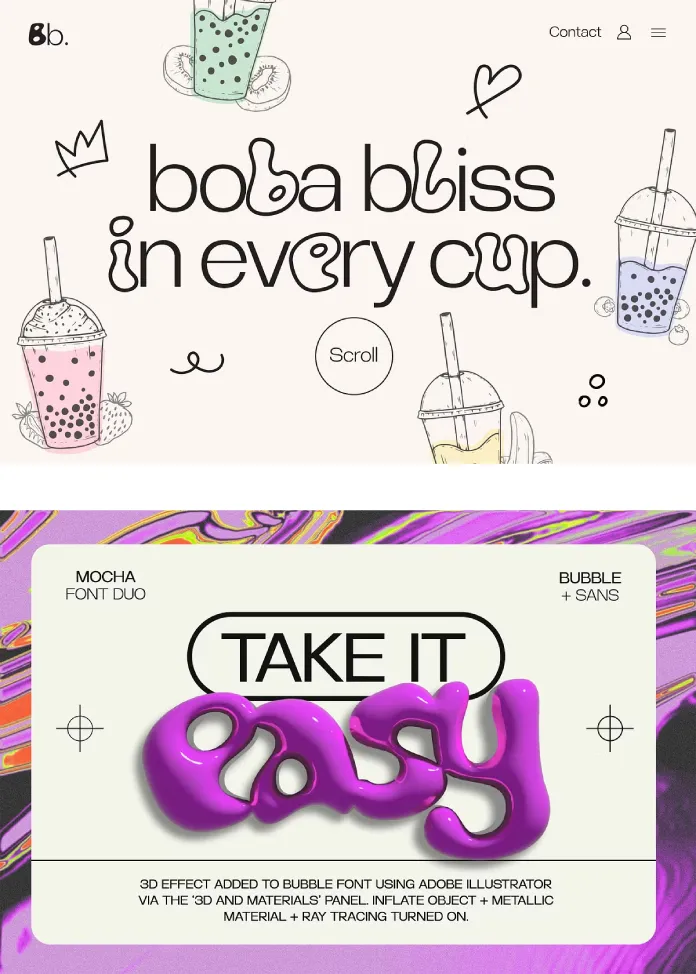
The Mocha Bubble + Sans Font Duo Offers Playful Typography for your Design
The quest for a typeface that is both contemporary and possesses a timeless, playful charm can be elusive. The Mocha Bubble + Sans font duo, a thoughtfully designed pairing by Sam Parrett of Set Sail Studios, rises to this challenge with remarkable finesse. This font duo is not merely a fleeting trend; it represents a significant shift towards more organic, friendly, and approachable aesthetics in typography. Its relevance is underscored by the current design ethos that prioritizes authenticity and a human touch. The Mocha Bubble + Sans font duo delivers exactly that, making it a pivotal tool for designers and brands aiming to connect with their audience on a more personal level.
This article will explore the intricacies of this unique font pairing. We will delve into what makes the Mocha Bubble and Sans fonts a cohesive and versatile system. We will also examine why this duo is gaining traction and how you can effectively leverage its distinct personality in your own creative projects. Prepare to be inspired by the playful possibilities that await.
Deconstructing the Duo: What is the Mocha Bubble + Sans Font?
At its core, the Mocha Bubble + Sans font duo is a carefully curated set of four distinct yet complementary typefaces. Sam Parrett has created more than just two fonts; he has engineered a typographic system designed for interaction and creative exploration.
Mocha Sans & Mocha Sans Bold
The foundation of this pairing is Mocha Sans, a modern and contemporary contrasted sans-serif font. Its clean lines and balanced proportions provide clarity and a touch of elegance. This font is a workhorse, suitable for body text, headlines, and everything in between. It comes complete with a full set of uppercase and lowercase letters, as well as punctuation.
Recognizing the need for emphasis and hierarchy, Parrett included Mocha Sans Bold. This bolded version maintains the core characteristics of the original but with added weight, making it ideal for creating visual impact or ensuring legibility at smaller sizes. Have you considered how a subtle change in font weight can dramatically alter the tone of your message?
Mocha Bubble & Mocha Outline
The true star of this pairing is arguably Mocha Bubble. This playful, organic, hand-drawn bubble font injects a sense of fun and fluidity into any design. Its soft, rounded forms are whimsical yet controlled, avoiding the overly childish feel that can sometimes plague bubble fonts. Like its sans-serif counterpart, it includes a full set of uppercase and lowercase characters and punctuation.
To expand the creative possibilities even further, the duo includes Mocha Outline. This outlined version of the bubble font offers an additional stylistic layer. It can be used on its own for a light, airy feel or paired with the regular bubble or sans versions to create eye-catching, multi-dimensional text effects.
The “Why”: Analyzing the Appeal of the Mocha Bubble + Sans Font Duo
The rising popularity of the Mocha Bubble + Sans font duo is no accident. It taps into several key design trends and fulfills specific creative needs that resonate with modern audiences. Its appeal lies in the masterful balance between its two core components.
This font duo masterfully combines a clean, modern sans-serif with a playful, hand-drawn bubble font. This contrast is the source of its dynamic energy. The juxtaposition of the structured and the organic creates a visual harmony that is both engaging and aesthetically pleasing. This allows designers to convey professionalism and personality simultaneously. Think about the brands that successfully blend approachability with a sense of authority.
The hand-drawn quality of the Mocha Bubble font brings a much-needed human element to digital design. In an era dominated by pixel-perfect graphics, the organic and slightly imperfect nature of this font feels authentic and relatable. This “human touch” can make a brand feel more personal and trustworthy.
The inclusion of four distinct fonts (regular, bold, bubble, and outline) makes this duo incredibly versatile. It is not a one-trick pony. This set can be adapted for a wide range of applications, from branding and packaging to social media graphics and editorial design. The ability to mix and match these fonts within a single design, or even within the same word, opens up a vast playground for typographic experimentation.
The “How”: Practical Applications and Design Inspiration
Understanding the “what” and “why” is essential, but the real magic happens when you start applying the Mocha Bubble + Sans font duo to your own work. Here are some practical ideas and inspirational starting points to get your creative juices flowing.
Branding and Logo Design
The Mocha Bubble + Sans font duo is exceptionally well-suited for creating memorable and approachable brand identities. The sans-serif font can be used for the primary brand name to ensure clarity and professionalism, while the bubble font can be used for a tagline or secondary brand mark to inject a dose of personality. This combination is ideal for brands in the food and beverage, children’s products, or creative industries.